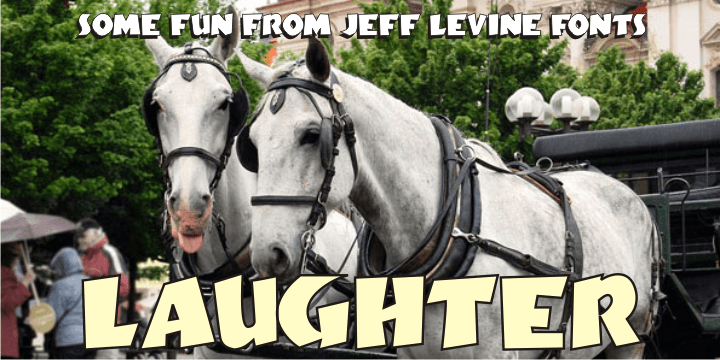
Laughter
Laughter JNL is a deconstruction of the vintage sign painter's design Brushmark JNL.
By flattening most of the curved lines and making other minor adjustments to the original design, the end result was a fun and playful sanserif that is great for lighthearted ads, party invitations, special events, point-of-sale signage and many other applications where a less-than-formal design is required.
Laughter JNL Regular by Jeff Levine Fonts